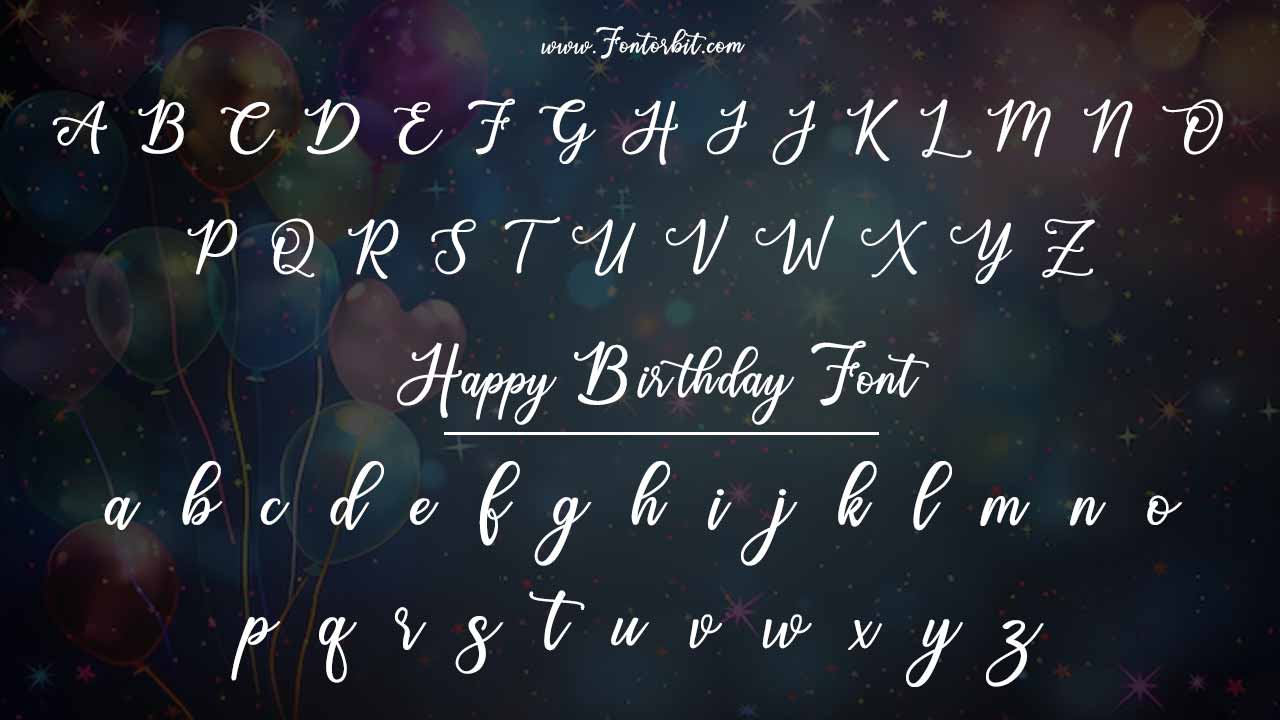
Choosing the right birthday font is very important if you want to throw a great birthday party or send out awesome birthday cards and invitations. The happy birthday font you choose will set the tone for the event and leave a lasting impression. Whether you’re designing a birthday celebration poster, a happy birthday card, or party invitations, there are countless font styles to fit any occasion. Let’s dive into some of the best happy birthday fonts, their unique features, and how to use them to make every occasion special.
Happy Birthday Font Family
- Designer: Java Pep
- Style: Script
- Best For: Birthday cards, birthday posters, and birthday invitations
- Weight: Regular
- Pros: Fun, energetic, and perfect for informal celebrations.
- Cons: Limited weight variations (only available in Regular).
This font is best used in projects requiring bold, eye-catching letters. It’s particularly suitable for happy birthday typography, greeting cards, and birthday party banners. Its casual script style gives it a fun, celebratory vibe. Pair this script font with a more neutral sans-serif font like Arial or Helvetica for a balanced design.
Crustaceans Signature Font Family
- Designer: Various Designers
- Style: Calligraphy
- Best For: Wedding invitations, birthday celebrations, and formal birthday party events
- Pros: Elegant, sophisticated, and works well for formal events.
- Cons: May not be as suitable for casual, playful birthday themes.
This elegant calligraphy font is ideal for upscale birthday occasions or wedding invitations. It adds a touch of class to your happy birthday text or any birthday wishes. Combine with a clean serif font like Times New Roman for a refined look.
Wild Love Font Family
- Designer: Various Designers
- Style: Playful
- Best For: Baby bday invitations, casual birthday party themes
- Pros: Energetic, friendly, and great for informal birthday designs.
- Cons: Not suited for formal or elegant designs.
This playful font is perfect for birthday invitations and birthday cards with a fun, whimsical style. Use it for baby bday themes, birthday events, or any casual birthday gathering. Pair with a clean, minimalist font like Roboto for a fun, youthful vibe.
Anthony Gilford Font Family
- Designer: Various Designers
- Style: Handwritten Craft
- Best For: DIY birthday cards, greeting cards
- Pros: Personal and charming, perfect for handmade projects.
- Cons: May not stand out enough on larger designs like posters or banners.
This handy craft style font is perfect for those who enjoy creating personal, handmade birthday cards or greeting cards. It gives a natural, hand-lettered look that makes each design feel personal. Combine with a simpler serif font like Georgia to keep the focus on the fun, hand-crafted lettering.
Fungky Brow Demo Font Family
- Designer: Various Designers
- Style: Neon
- Pros: Bold, energetic, and modern for trendy birthday parties.
- Cons: Best suited for certain themes and may not fit all birthday designs.
This neon style font is ideal for vibrant, eye-catching designs. Perfect for posters, birthday event banners, and party invitations that need a modern, upbeat look. Pair with a simple sans-serif font like Futura to maintain the bold impact of the neon effect.
Cake Font Family
- Font: CakeFont.otf
- Designer: Various Designers
- Style: Playful, Sweet
- Best For: Birthday cards, birthday party themes, especially cake or dessert themed parties
- Weight: Regular, Bold
- Pros: Fun and appropriate for cake-themed parties.
- Cons: May not fit formal or serious birthday occasions.
This sweet, playful font is designed specifically for birthday celebrations with a cake theme. It works perfectly for birthday cards, greeting cards, and even birthday party invitations. Combine it with a light script or a playful sans-serif font for a balanced, fun design.
Happy New Year Font
- Font: HappyNewYear.otf
- Designer: Various Designers
- Style: Elegant Serif
- Best For: Holiday greetings, birthday wishes, and new year birthday events
- Pros: Classic, elegant, and easy to read.
- Cons: May not capture the playfulness of casual birthday celebrations.
Although designed for Happy New Year greetings, this elegant serif font is also perfect for stylish birthday invitations and birthday cards, particularly for those celebrating a birthday near the new year. Pair with a simple sans-serif font like Arial or Open Sans for a clean, cohesive look.
4.How Do I Choose The Best Font For My Birthday Invitations?
Consider the theme and tone of your party. Playful fonts work well for casual events, while calligraphy or script fonts are better for formal or elegant celebrations.
5.Can I Use Multiple Fonts In My Birthday Design?
Yes! Combining fonts can create a dynamic design. Just make sure the fonts complement each other and maintain balance.